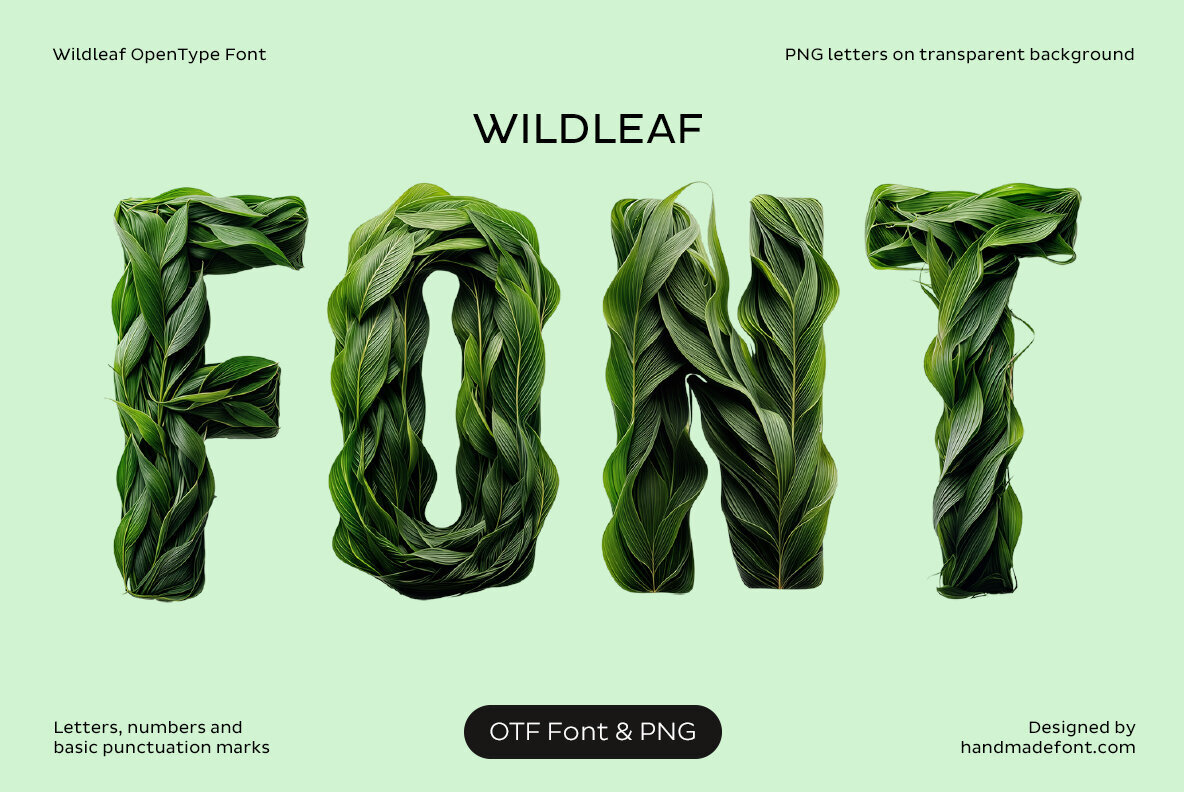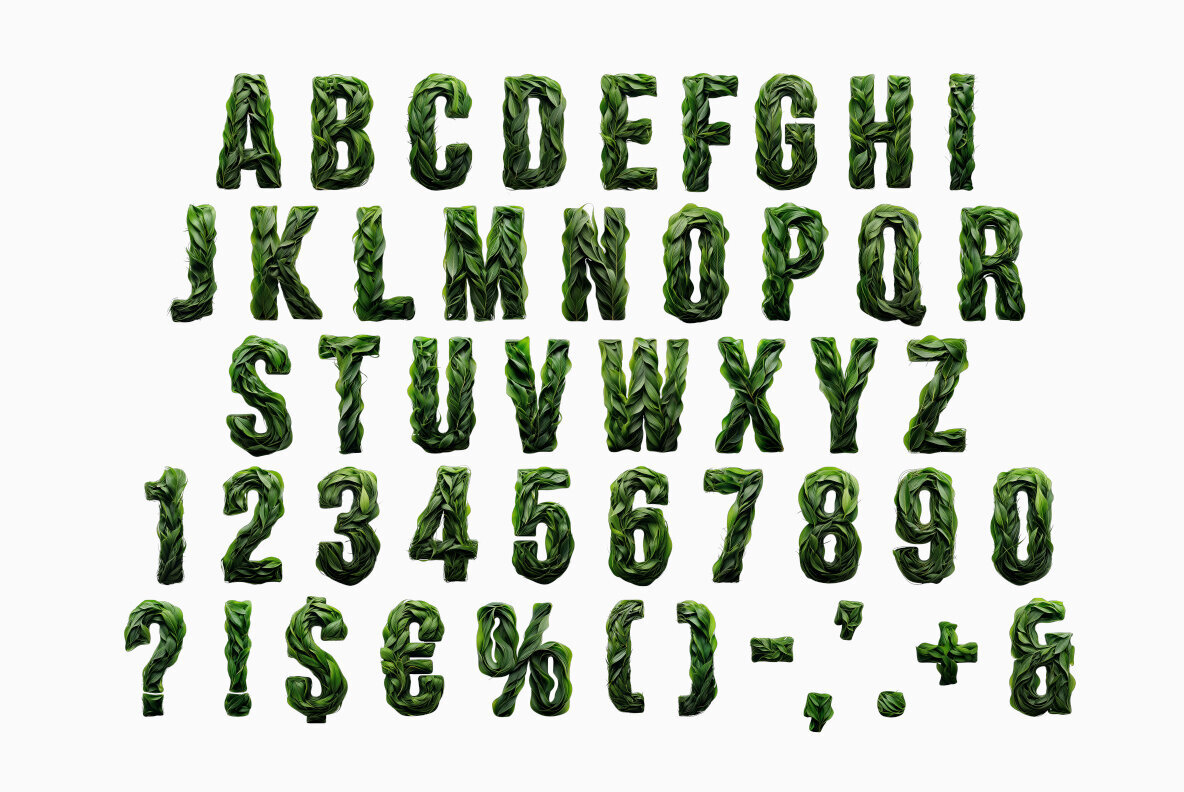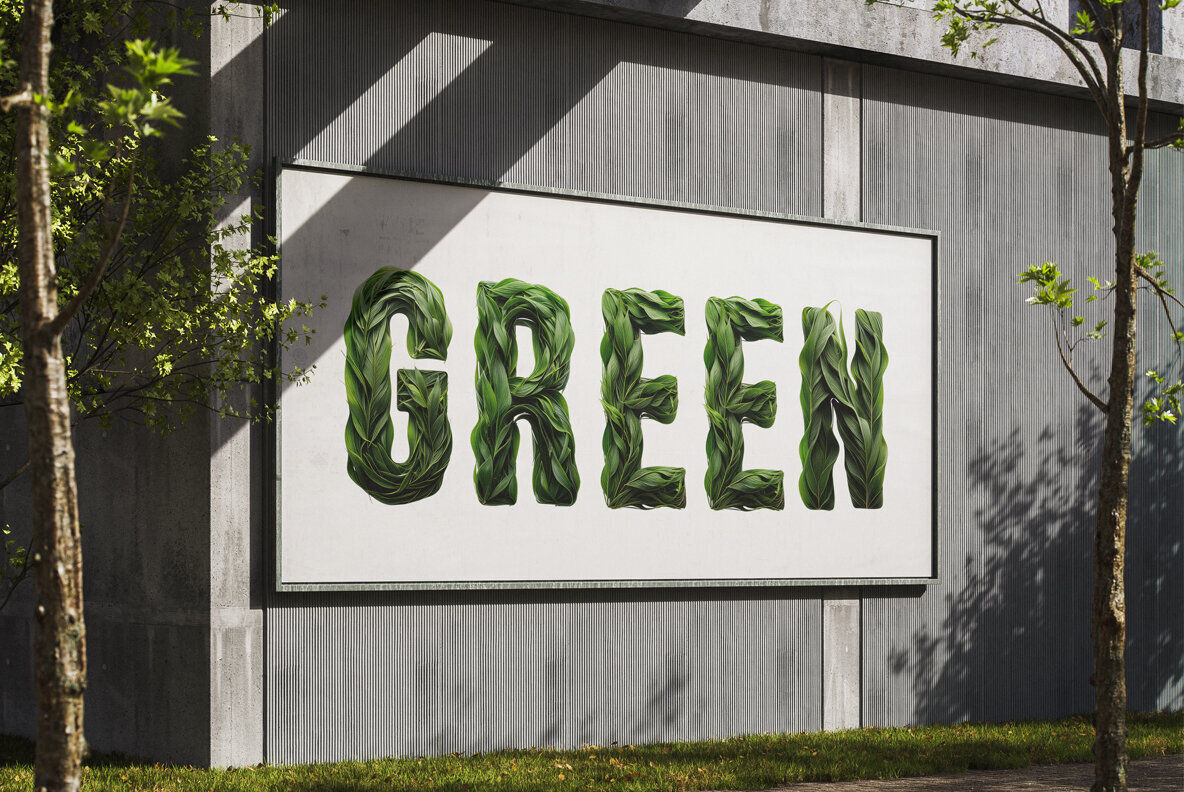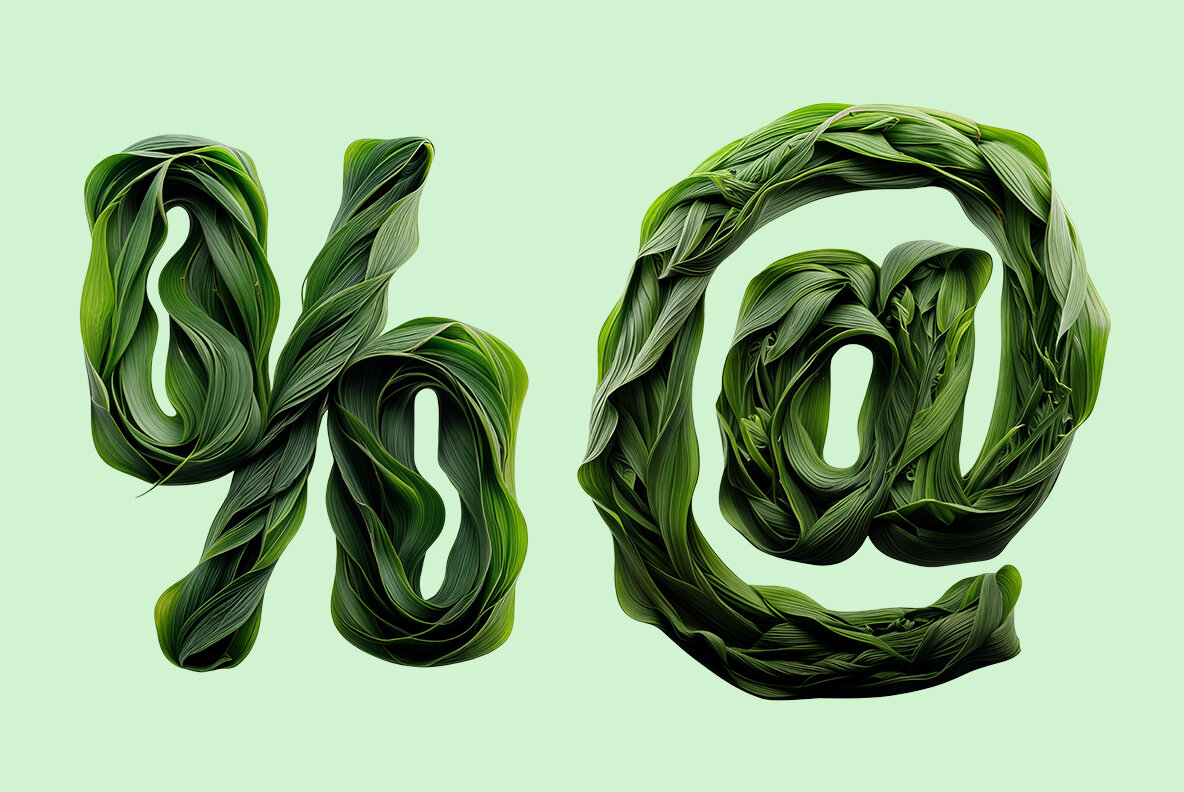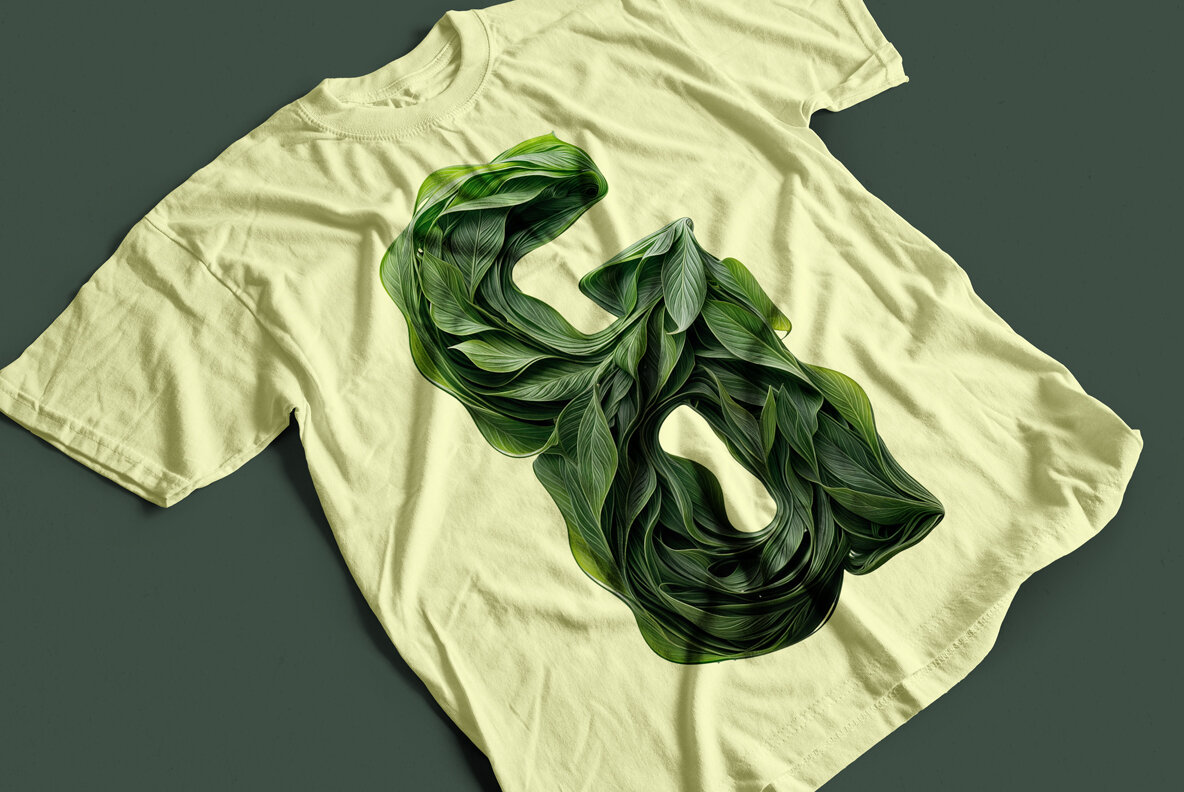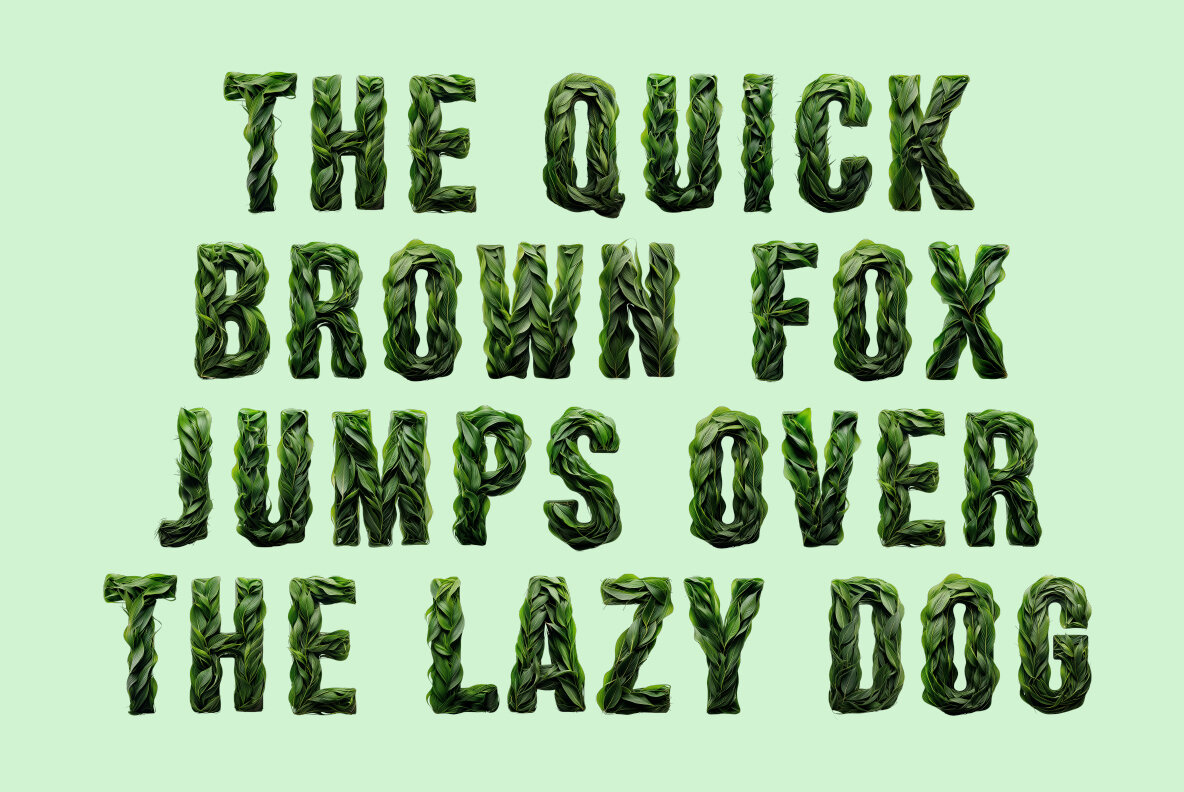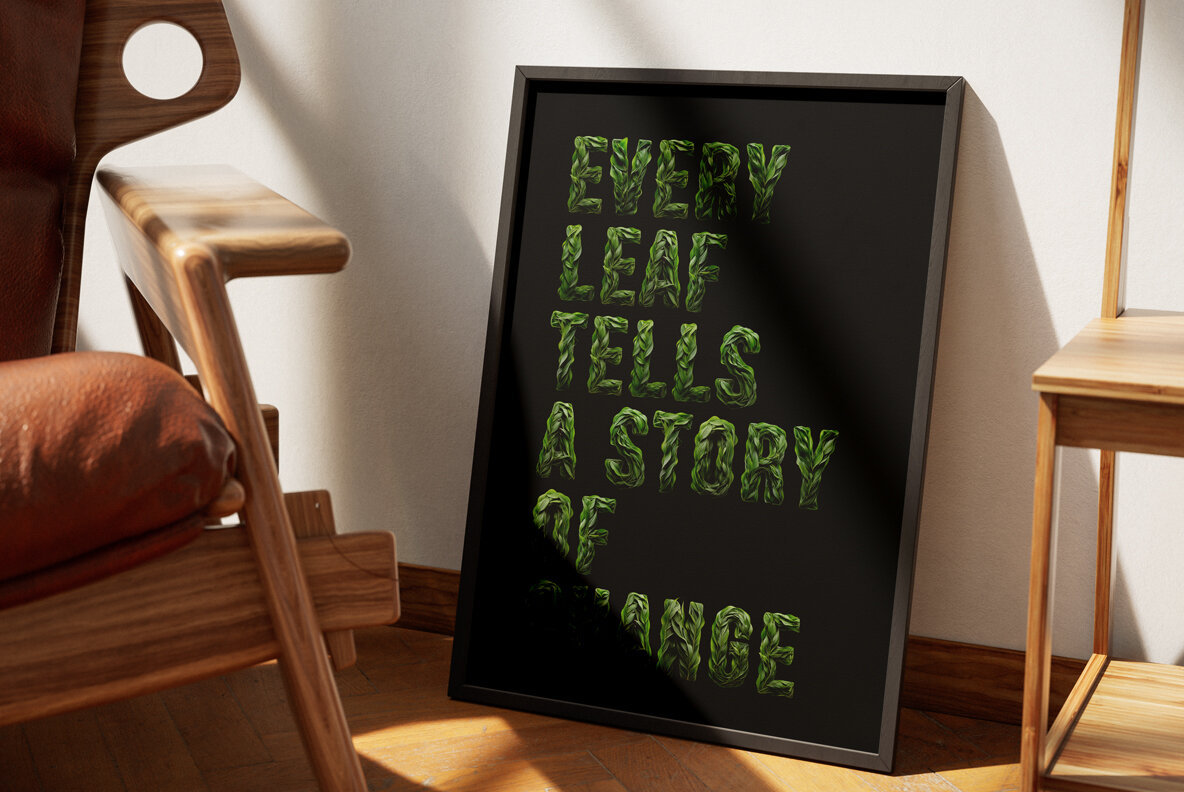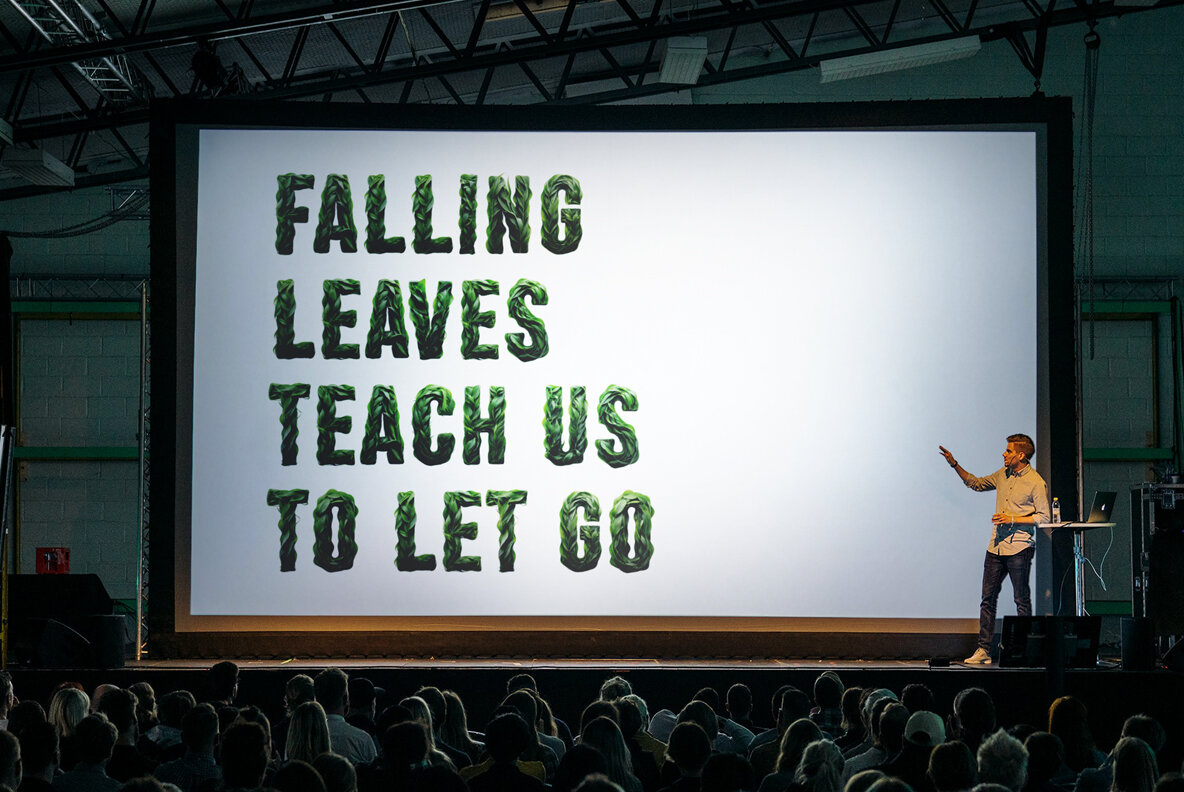
Discover the raw elegance of nature with the Wildleaf Font, an innovative typeface uniquely crafted to mirror the beauty of a forest. Each letter appears as if it's sprouted from a lush canopy, offering a look that is as refreshing as it is grounded in authenticity. Ideal for eco-conscious projects, botanical branding, and editorial designs centered on sustainability, the font brings a sense of vitality and freshness. The Wildleaf Font package includes uppercase letters, numerals, and basic punctuation, with each character artistically represented in high-resolution PNG files. This font's color OpenType format displays beautifully across compatible platforms such as Photoshop and Illustrator. For broader accessibility, each character is also available as a PNG image with a transparent background, boasting a high-resolution size of 4000x4000px.Wildleaf Font: An Organic Typeface Inspired by Nature
Punctuation and language support are not embedded in the OpenType-SVG files but are included as separate image files for seamless integration. Wildleaf Font invites you to infuse your designs with the spirit of the outdoors, offering a visual poetry that feels both inspired and grounded in a timeless narrative.